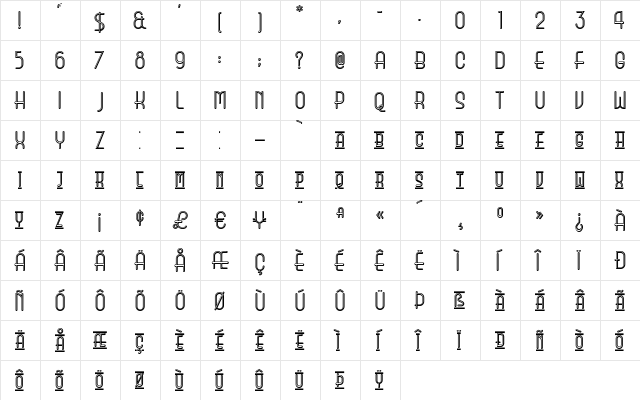
Neon Tubes Regular
Design Context for Neon Tubes Typeface
Neon Tubes channels digital-age aesthetics through its sharp, structured letterforms — ideal for brands that want to signal innovation.